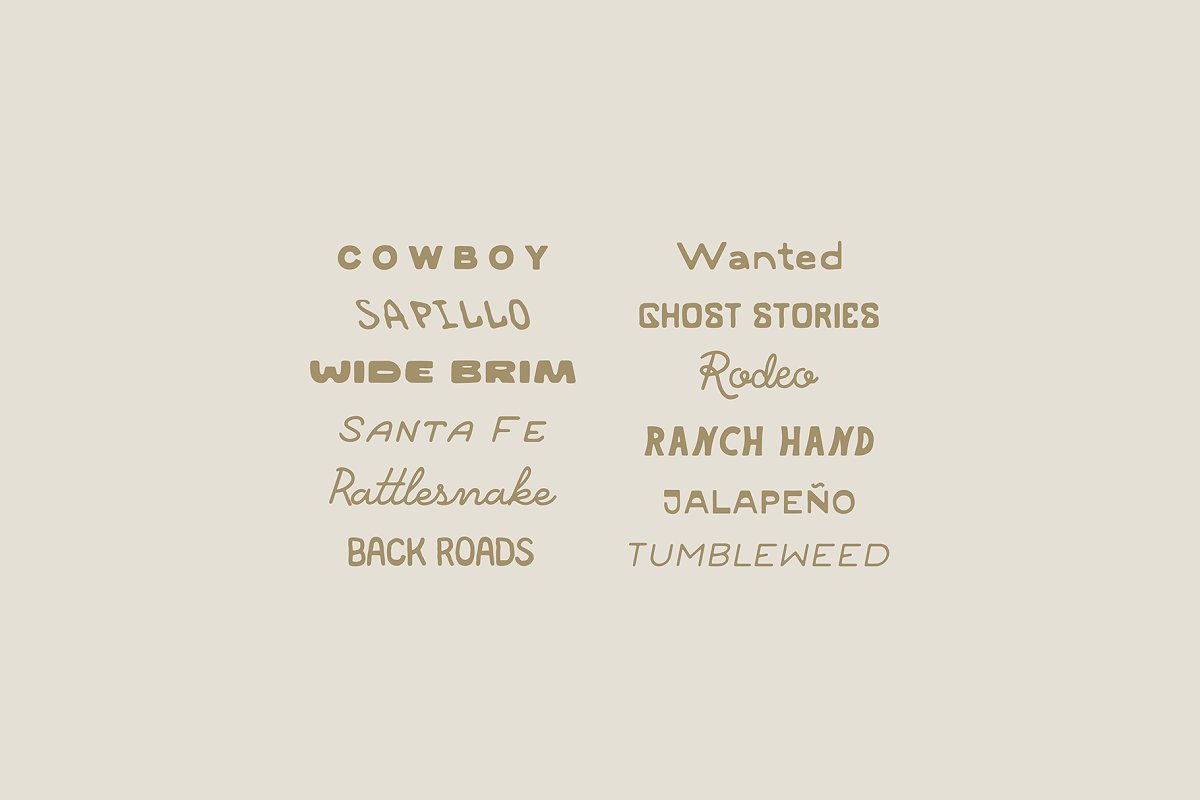
My goal for 2022 was to make and release a font every month, Well, it’s almost November and I’ve got all 12 fonts signed, sealed, and delivered, (Yes, I am an Oxford Comma person)Please enjoy using these on your minimal, natural, desert, southwestern, retro, vintage designs, Each font was inspired in some way by my travels (primarily in the southwestern US) or inspired from a culmination of package, brand, or poster designs that sparked something in me